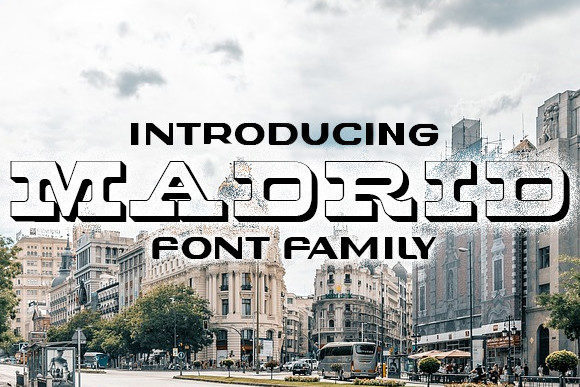
**Unleash the Magic of Madrid: A Font That Transports You to a Timeless Realm of Wonder**
Dear fellow font enthusiasts, prepare to embark on an enchanting journey through the realm of typography with the captivating Madrid font. This enchanting creation, meticulously crafted by the visionary artist, vladimirnikolic, transcends the boundaries of ordinary fonts, beckoning you to a world of boundless imagination.
Madrid Font is a masterful display font that exudes a playful nostalgia, evoking the charm of a bygone era. Its vintage aesthetic possesses an uncanny ability to infuse any design with a touch of retro magic. Allow Madrid Font to become your artistic muse, guiding you to create extraordinary designs that will leave an indelible mark on the hearts and minds of your audience.
Imagine the captivating allure of children's invitations adorned with the whimsical strokes of Madrid Font. Its playful and charming nature invites laughter and joy, perfectly capturing the essence of childhood wonder. Whether you're designing invitations for a joyous birthday celebration or a whimsical tea party, Madrid Font will add a touch of enchantment to every occasion.
The versatility of Madrid Font extends far beyond the realm of invitations. Unleash its creative potential in a myriad of design projects, from enchanting posters to captivating logos. This font possesses a remarkable ability to elevate any design, transforming it into a captivating masterpiece.
If you seek a font that sparks imagination, evokes nostalgia, and effortlessly adds a touch of vintage charm, then Madrid Font is the perfect choice for you. Its captivating strokes and playful spirit will breathe life into your designs, leaving an unforgettable impression on all who behold them.
Embrace the magic of Madrid Font today and embark on a creative adventure that will transport you to a timeless realm of wonder. Let your imagination soar as you create designs that are both captivating and unforgettable.